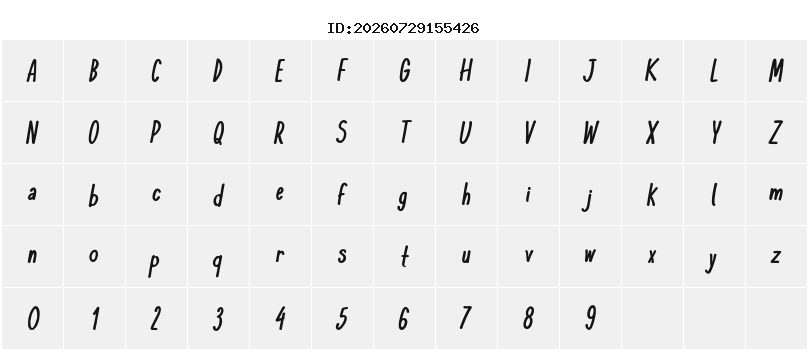
KomixCon Preview
• Font Name: KomixCon
• Font ID: KomixCon:Version 1.00
• Full Font Name: KomixCon Bold Italic
• Version: Version 1.00 February 27, 2016, initial release
• PostScript Name: KomixCon-BoldItalic
• Character Count: 246
• Designer: William Medeiros
• Manufacturer: William Jeovah de Medeiros
• Description: This font was created using FontForge
About KomixCon.otf
KomixCon.otf is a modern, elegant sans-serif font designed for ultimate readability and visual harmony. Perfect for branding, headlines, web design, and print materials.